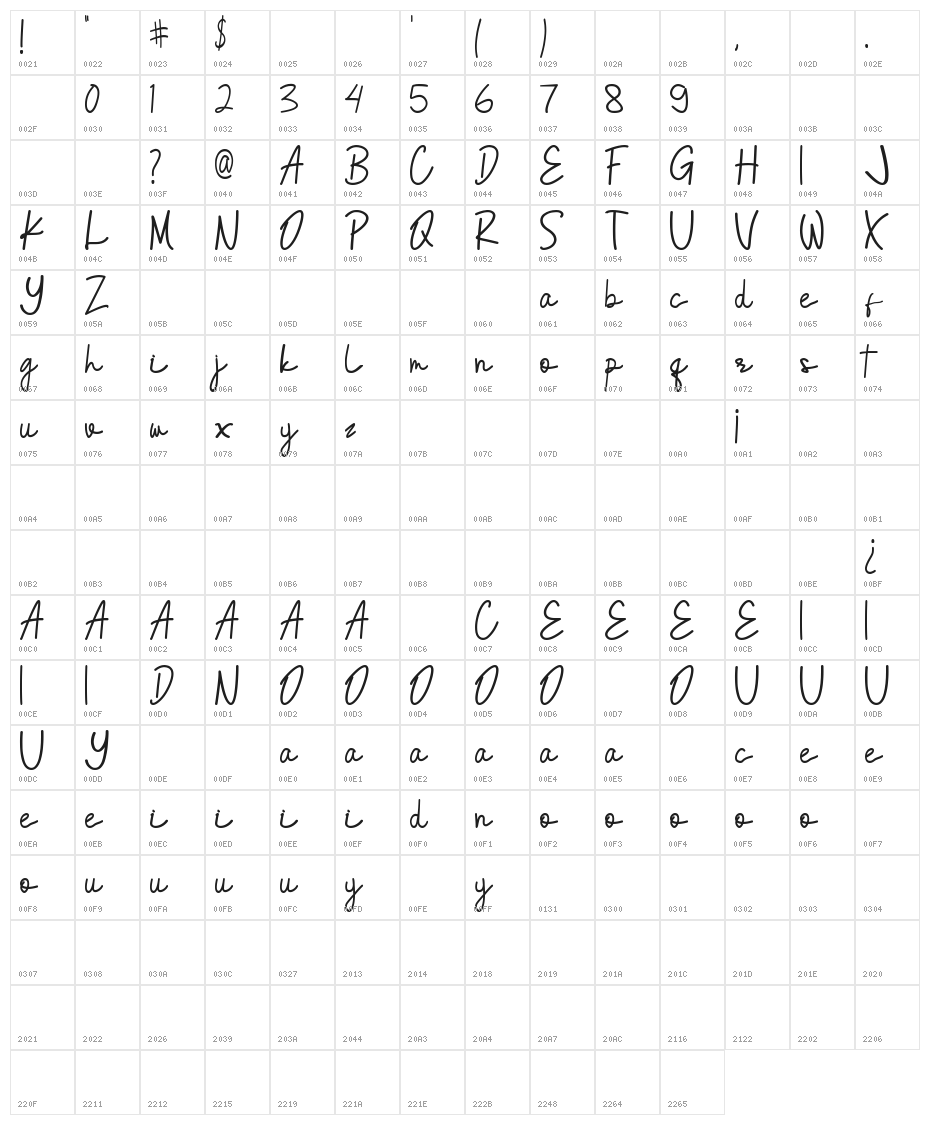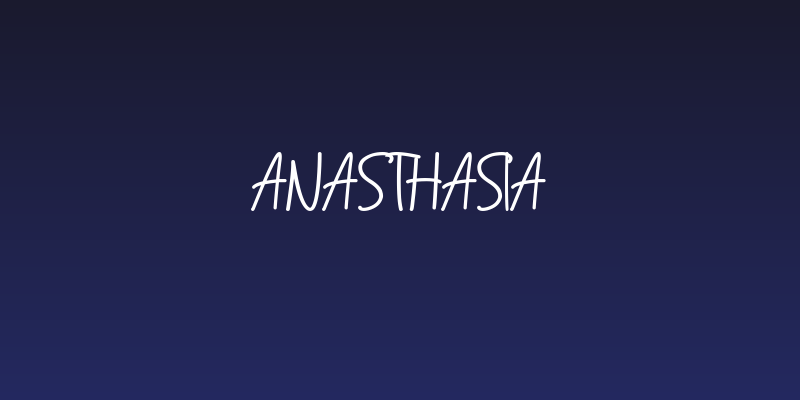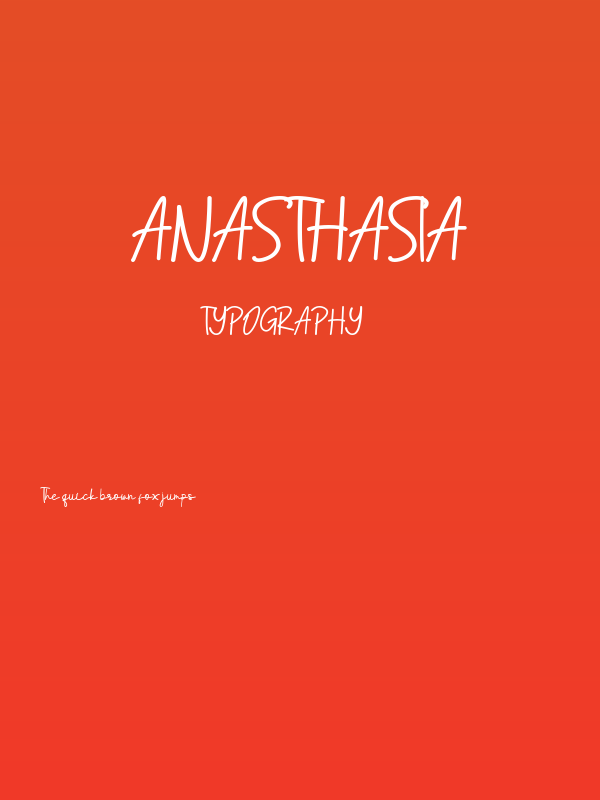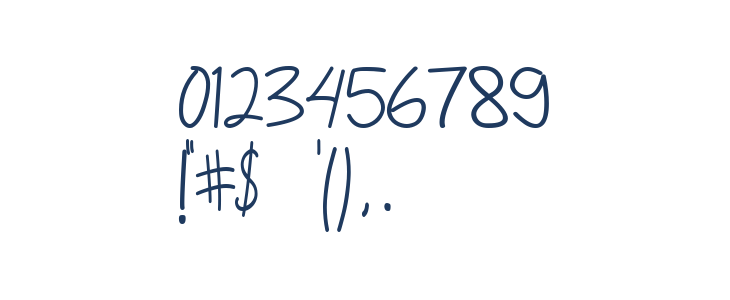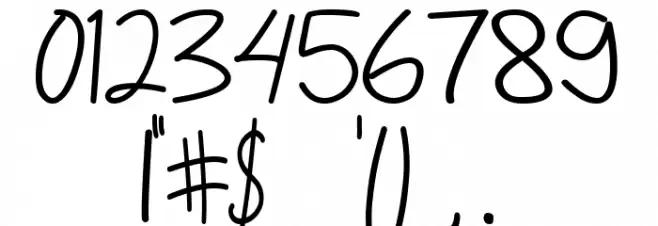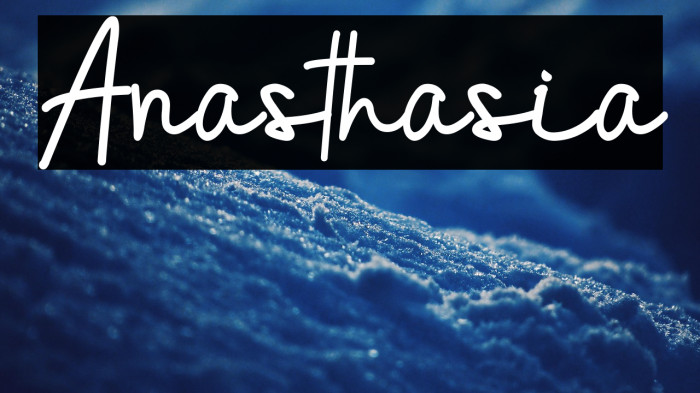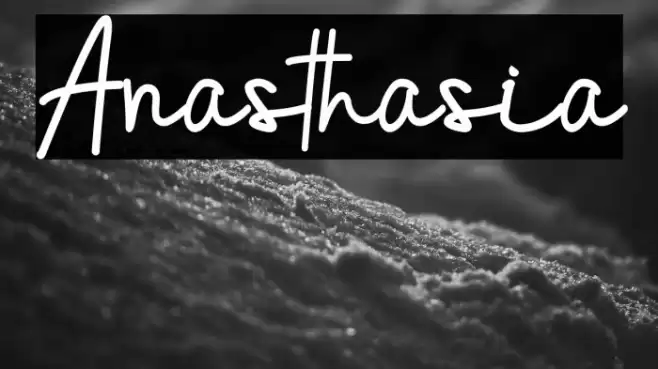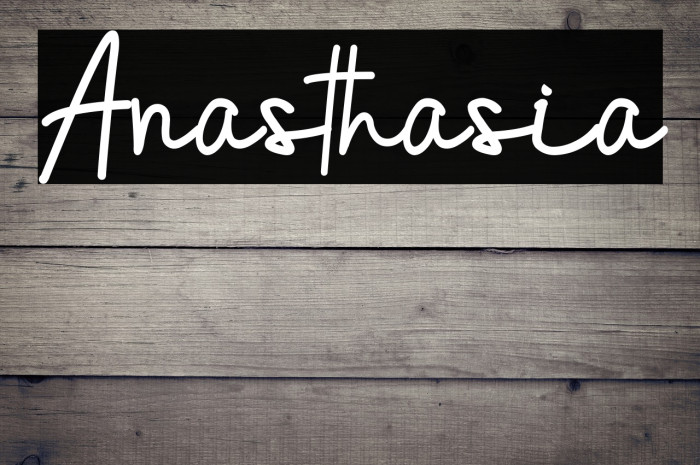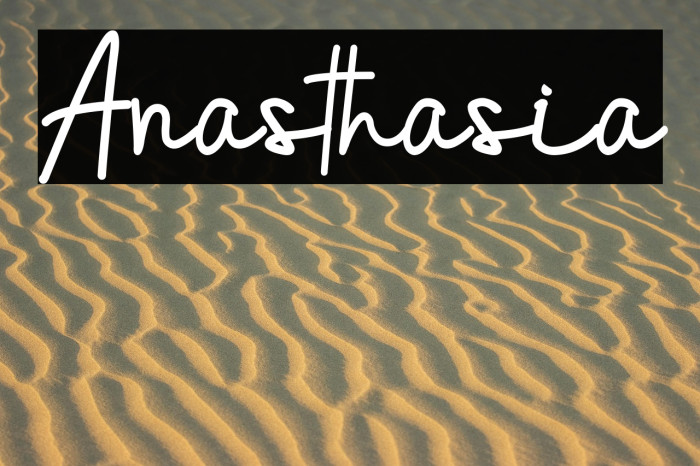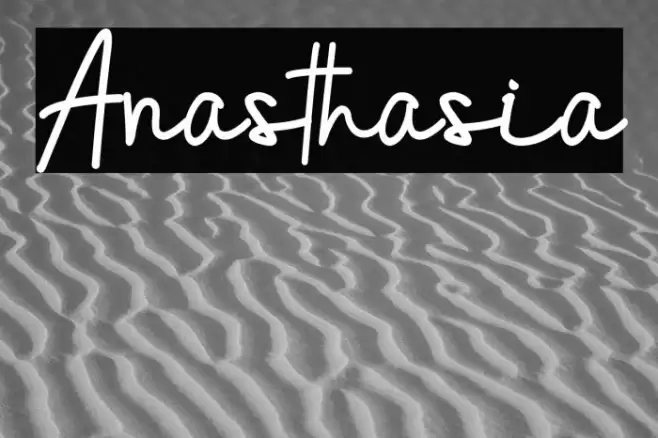
Anasthasia Font
This font features a playful and casual handwritten style, characterized by its fluid and dynamic strokes. The letters have a natural, flowing appearance, with slight variations in thickness that add to its organic feel. The uppercase letters are bold and slightly slanted, while the lowercase letters maintain a consistent, smooth curve. Numbers and special characters are designed to complement the overall aesthetic, making it versatile for various creative applications. The font's informal and friendly look makes it ideal for projects that require a personal touch.
| Use Case | Headlines, Logos, Informal text |
| Proposed Projects | Greeting cards, personal branding, social media graphics, and informal invitations. |